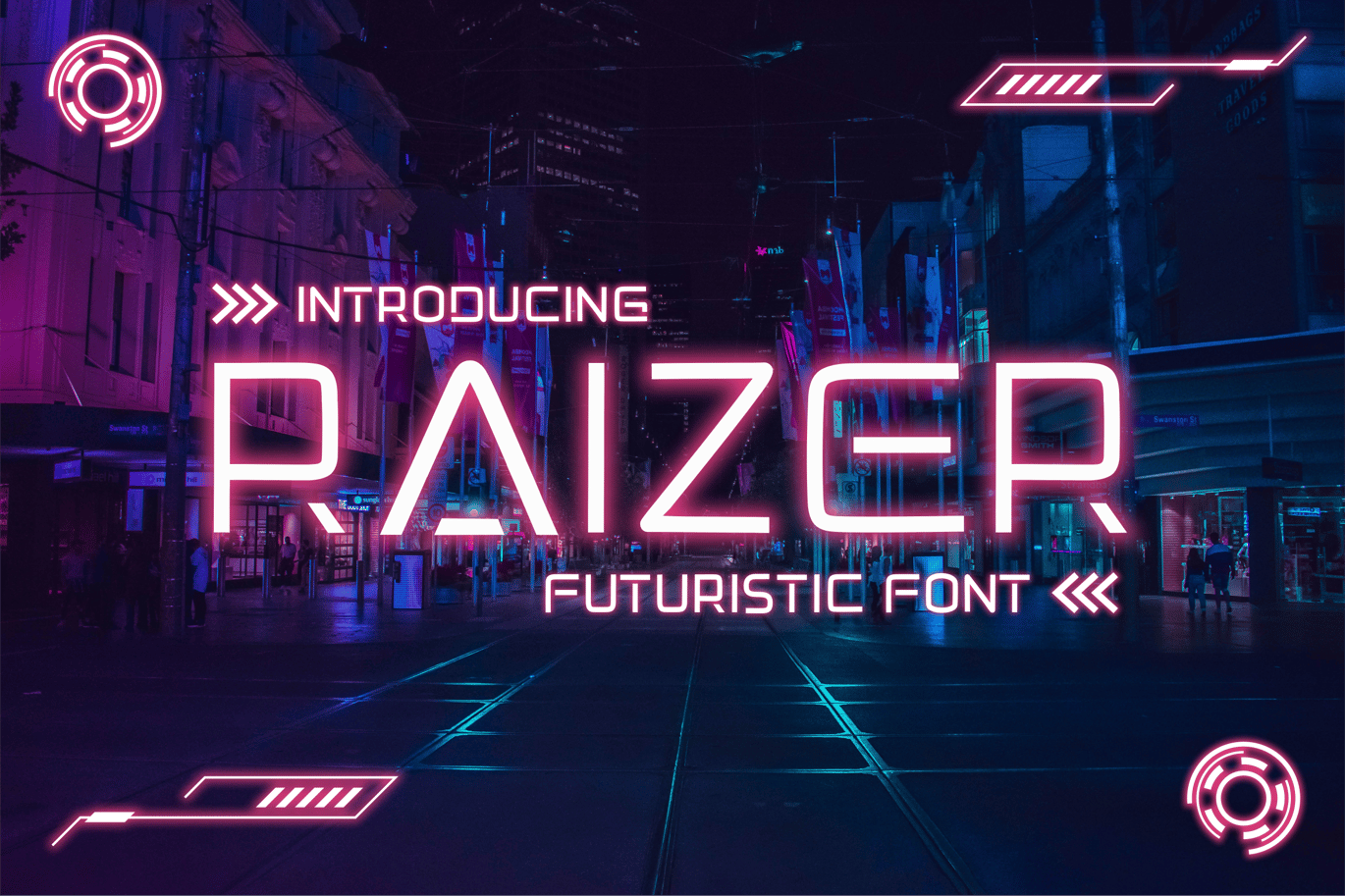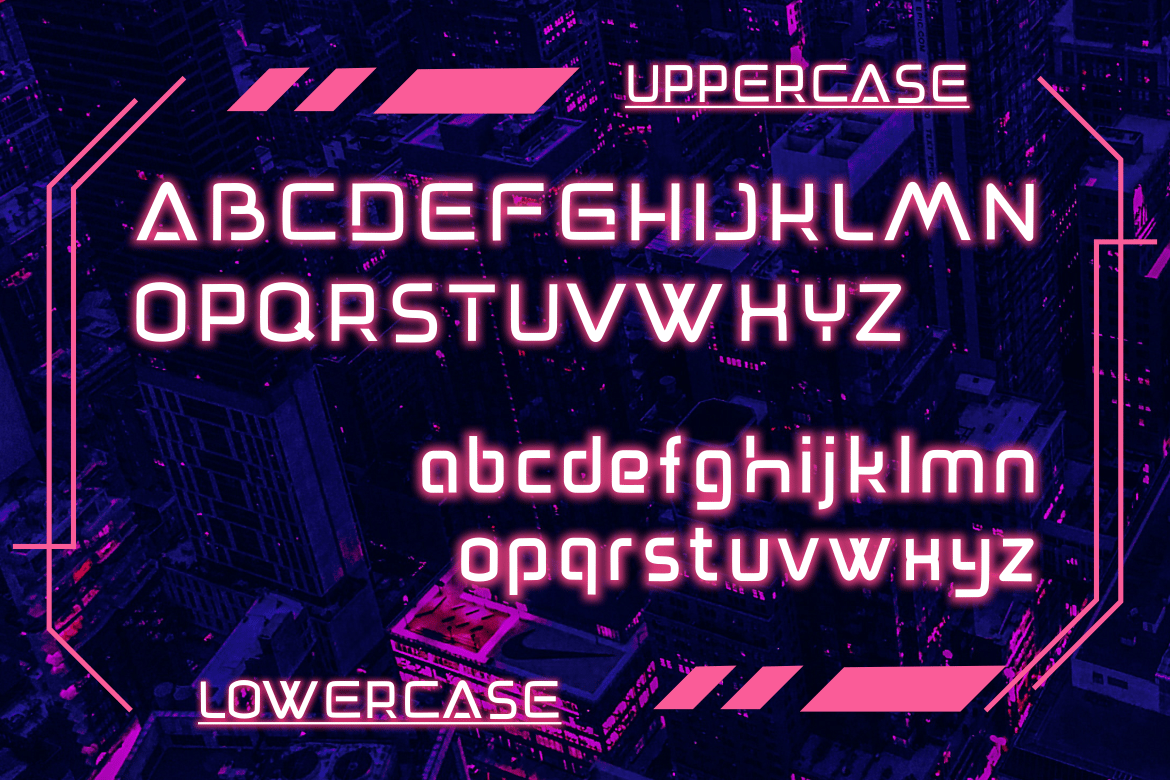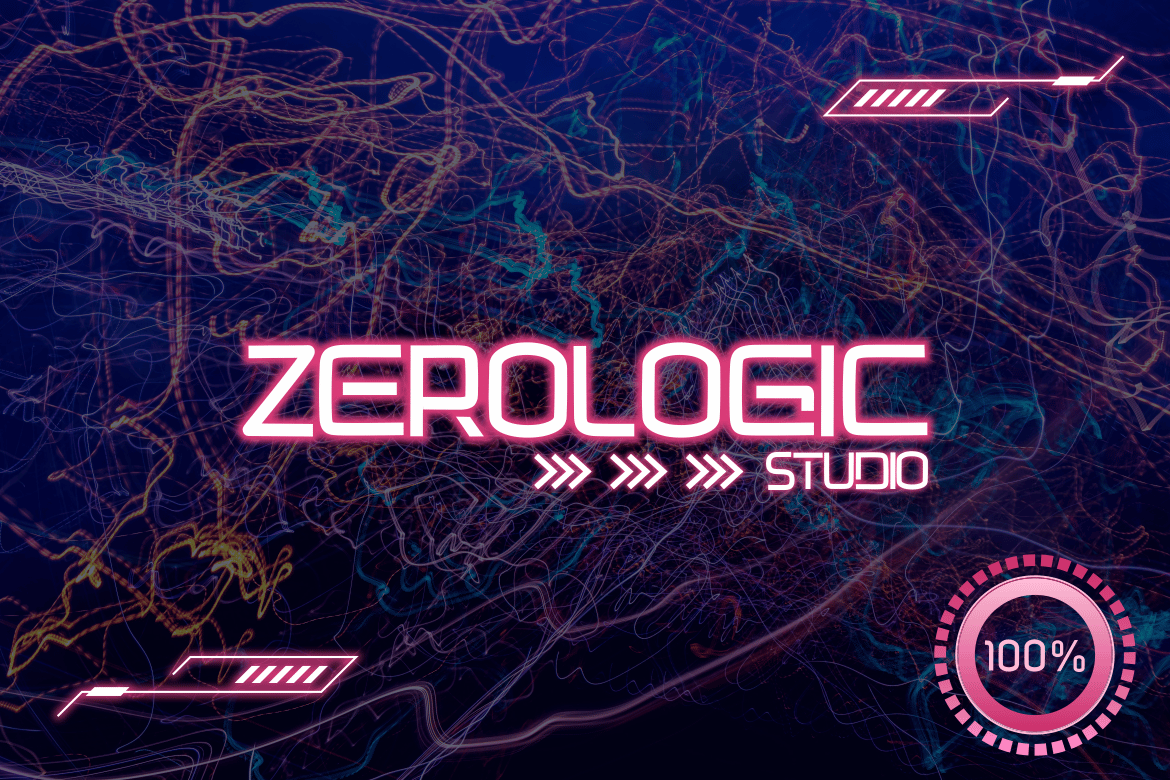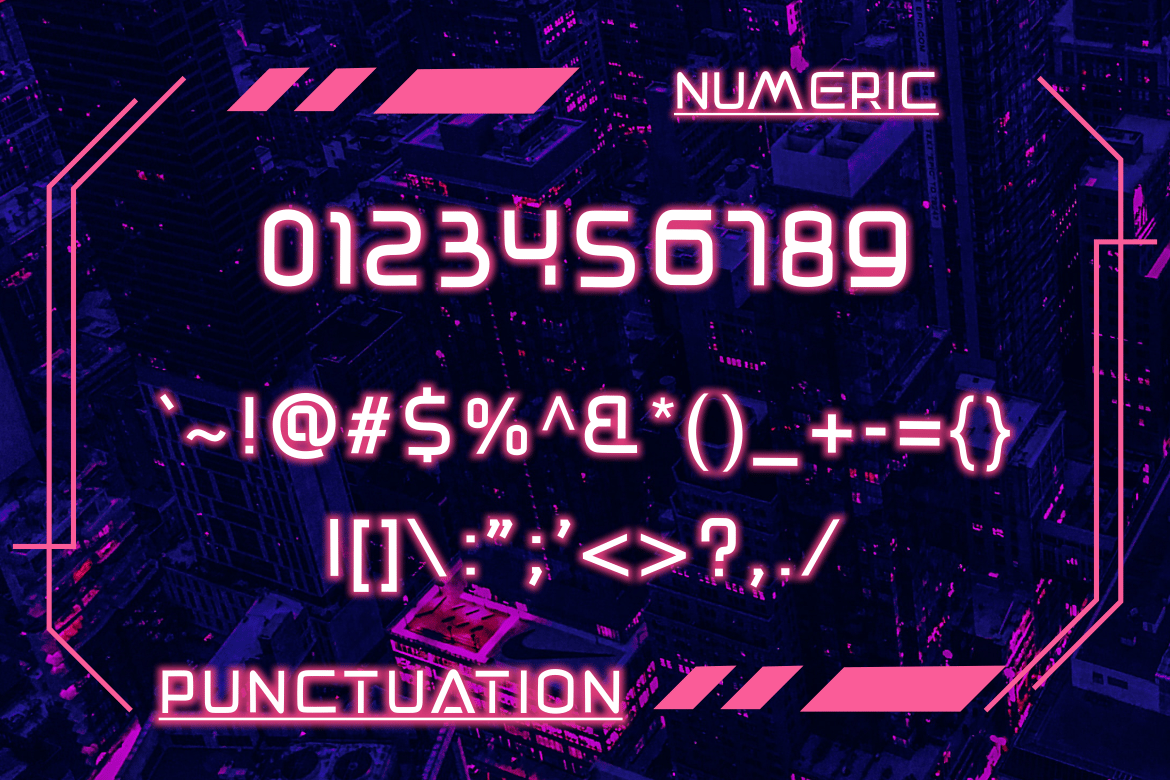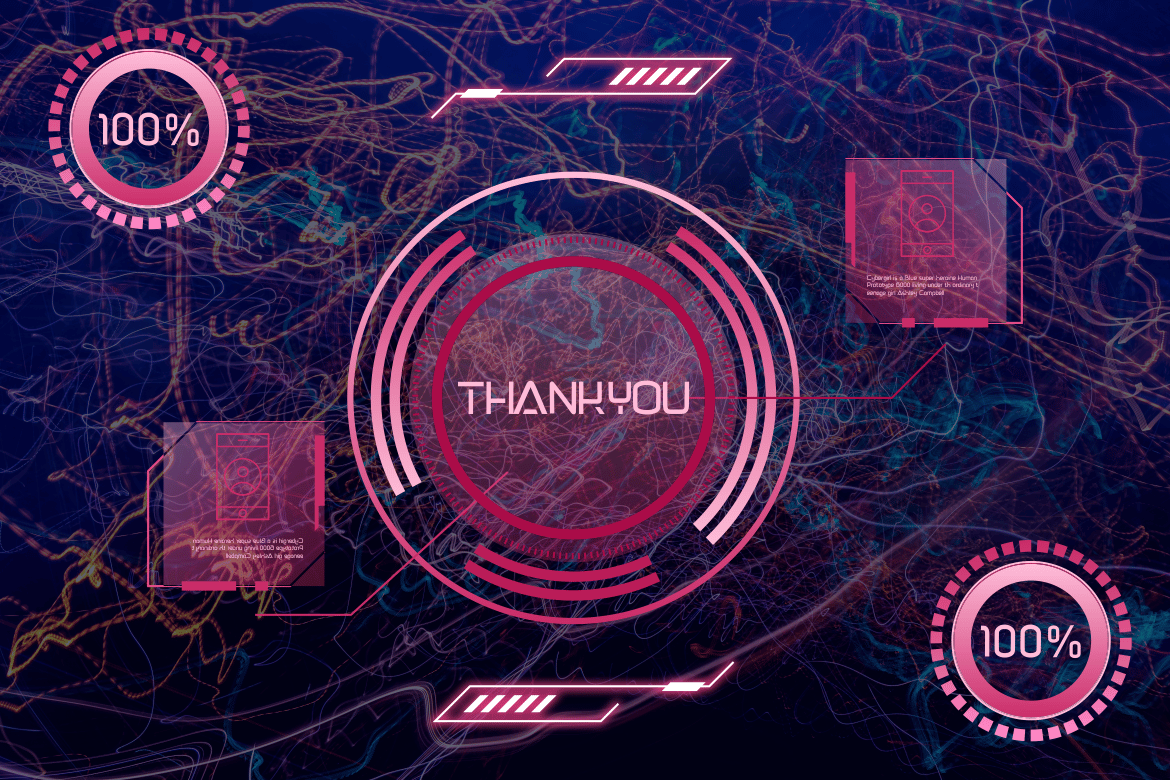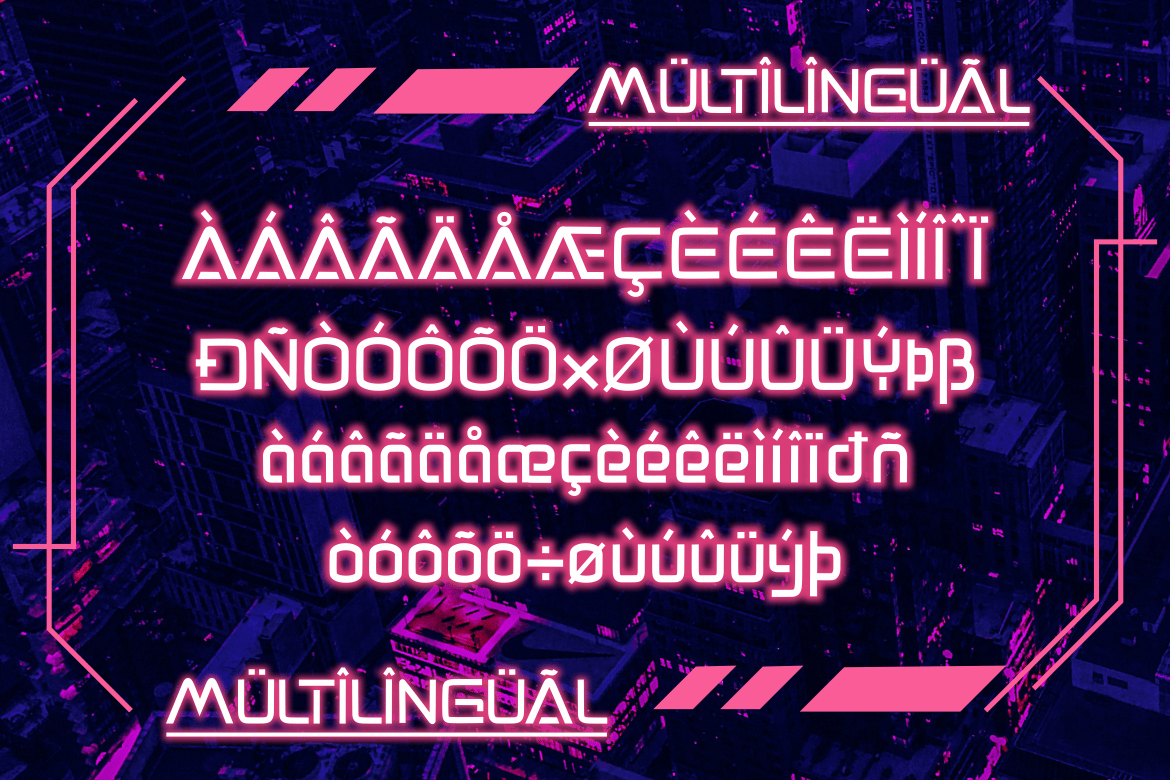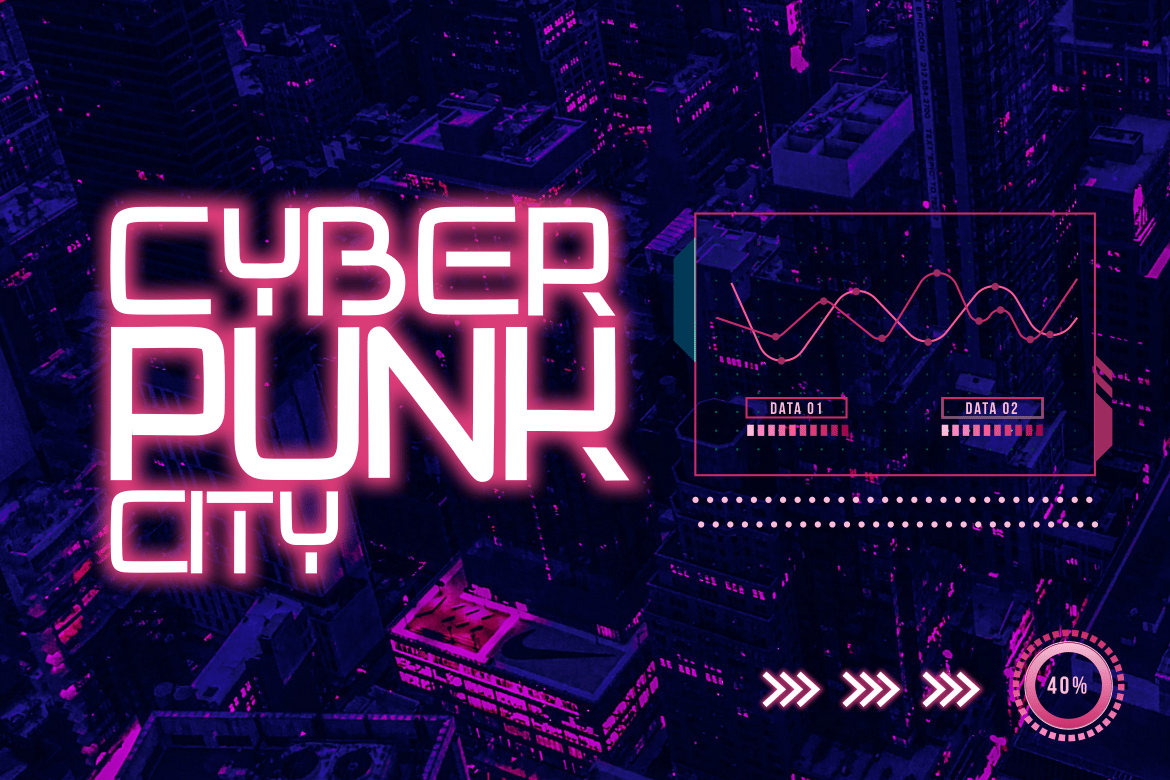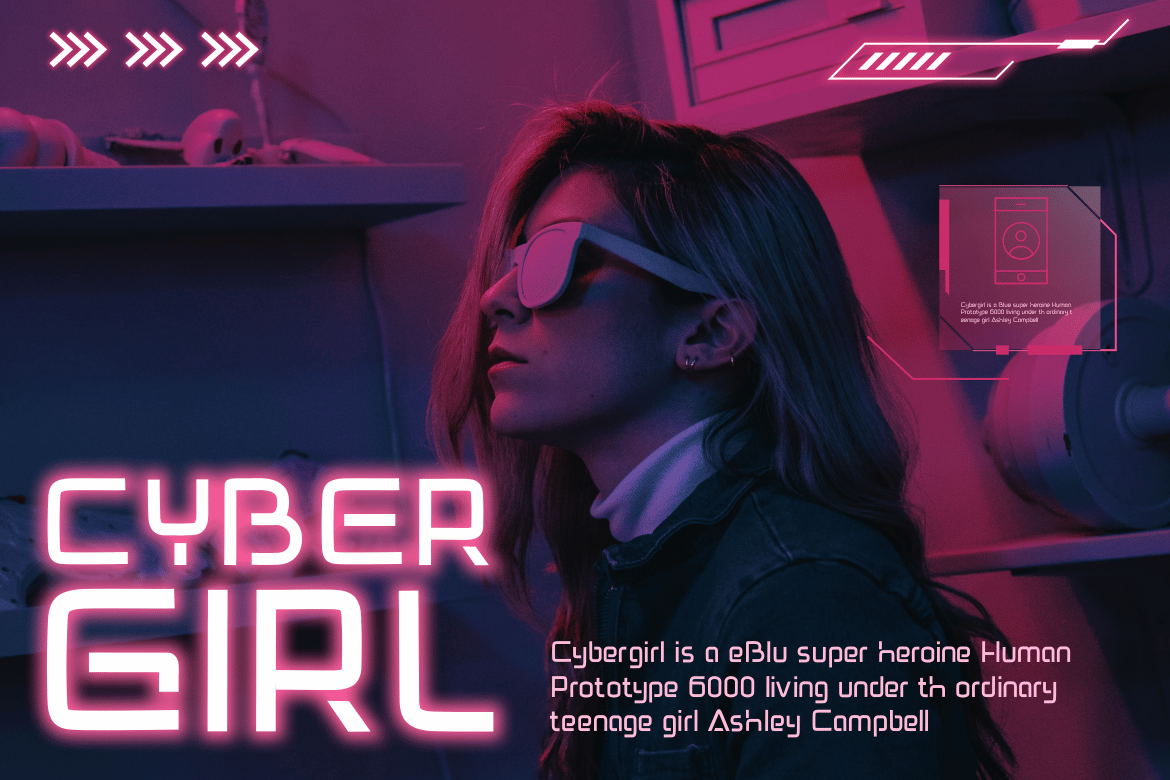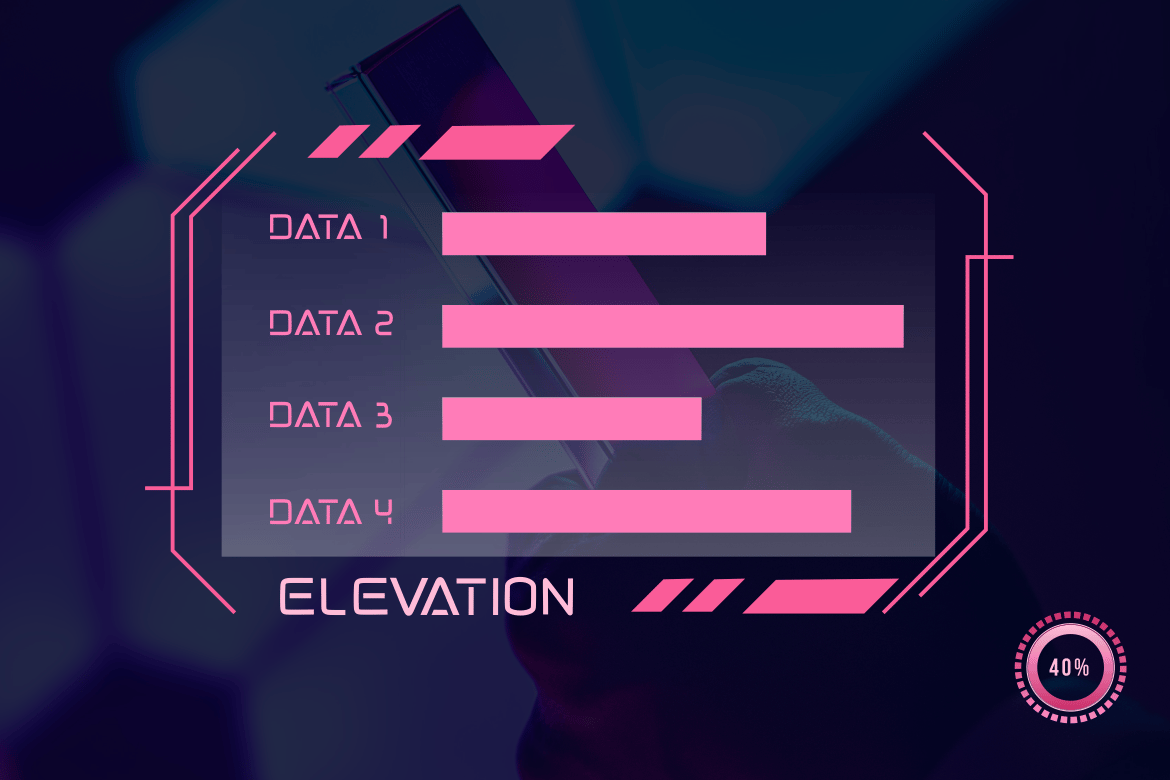
Raizer Futuristic Font
RAIZER is modern and Futuristic font that we designed with original touch for your needs.
This cool font is complete with Uppercase, Lowercase, Numeric & symbols. This very strong and sharp font is perfect
for titles, typography, posters, magazines, brochures, packaging, Websites and much more for your design needs, making your designs more cool.